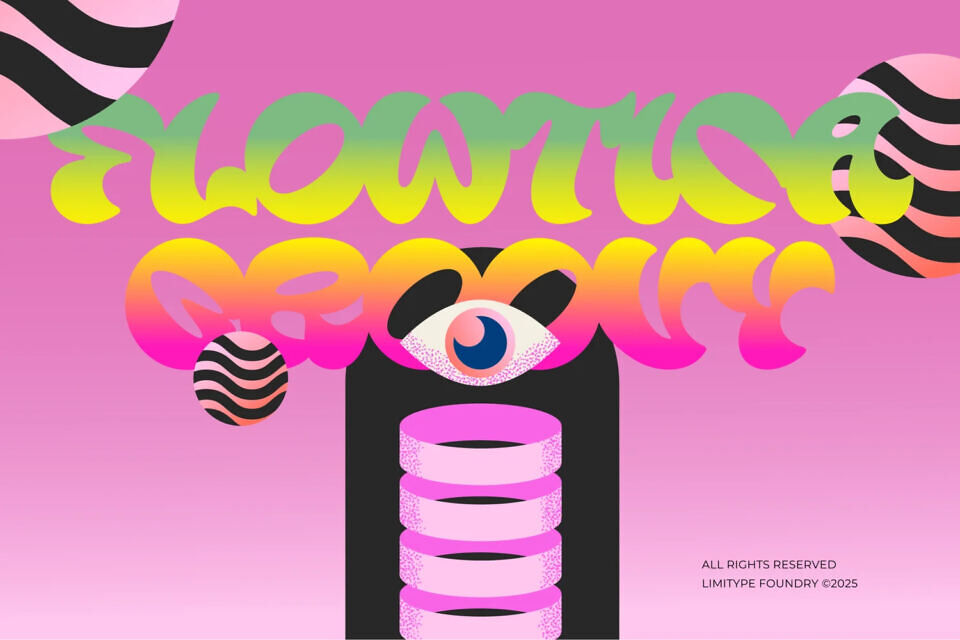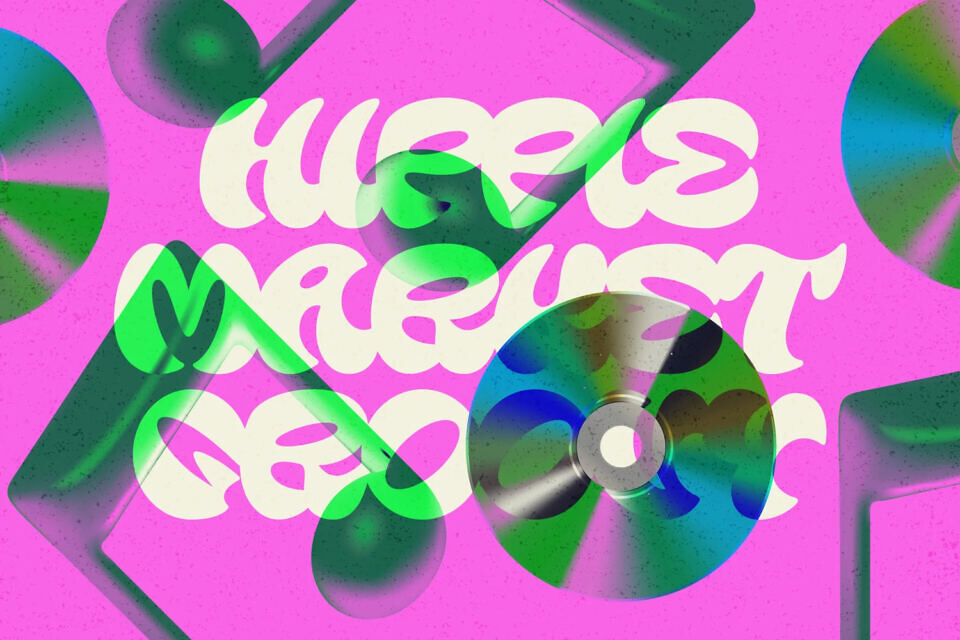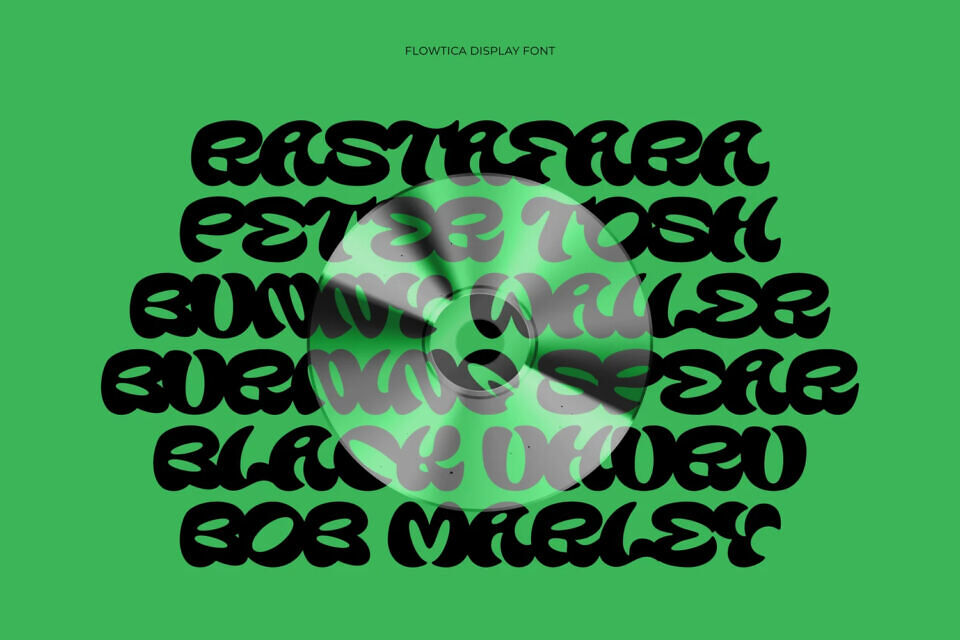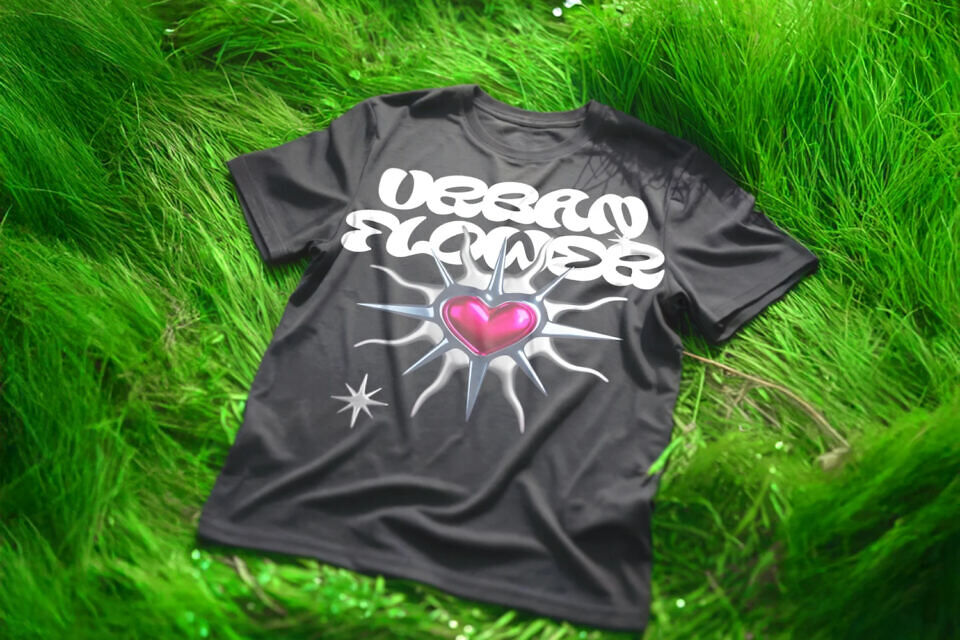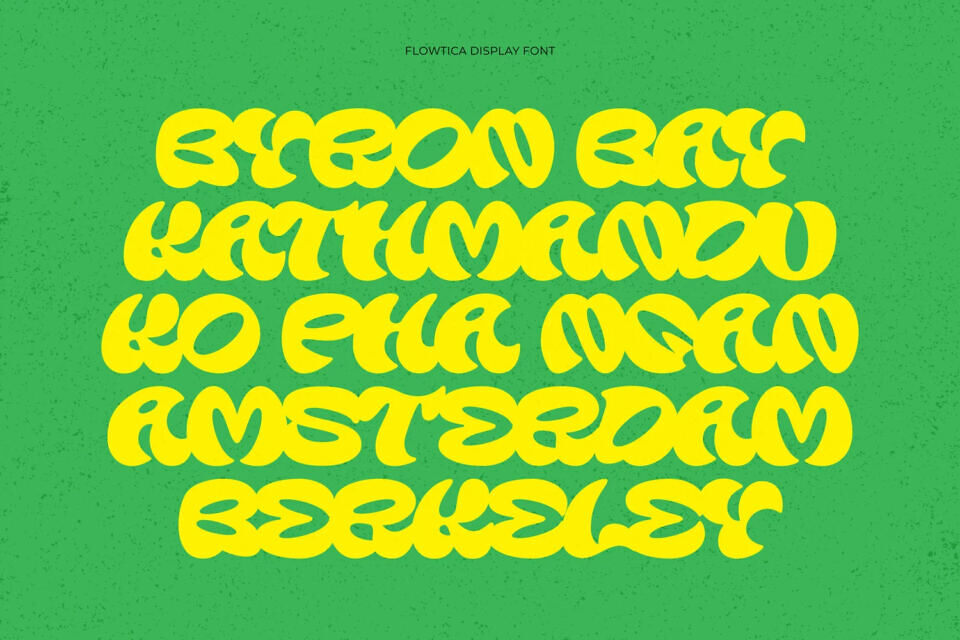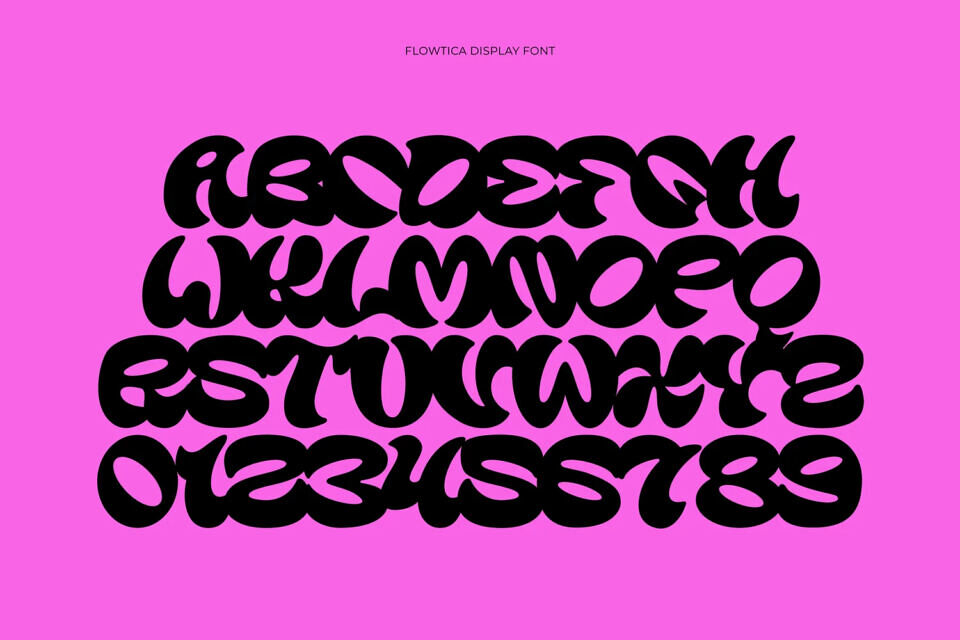
Flowtica is a bold groovy display font featuring rounded, wavy letterforms that radiate a retro psychedelic vibe. With its expressive and energetic style, this typeface transforms text into a lively visual statement.
Ideal for posters, vintage-inspired designs, music covers, social media graphics, and creative branding, Flowtica adds a distinctive charm to any project. Perfect for designers seeking a vibrant and stylish font, Flowtica ensures your work stands out with bold character and nostalgic appeal.